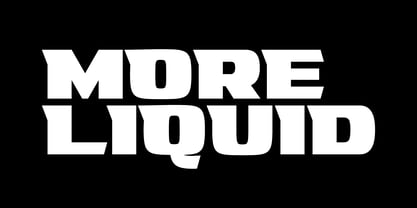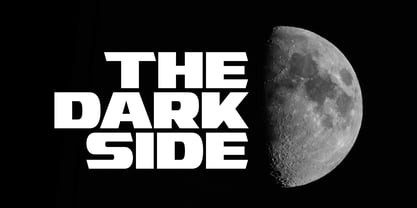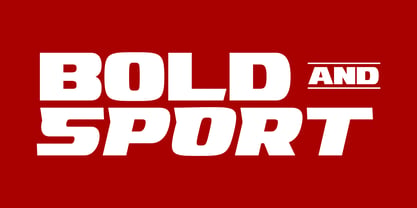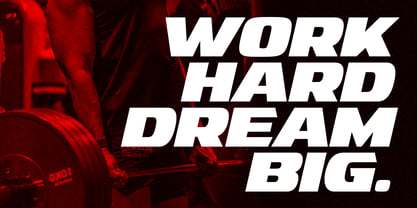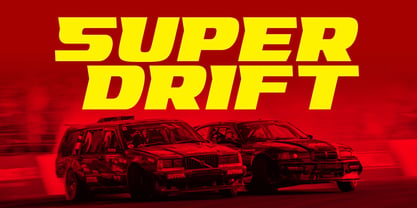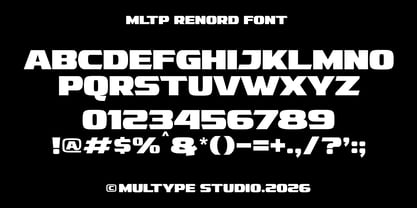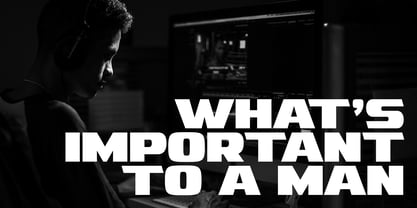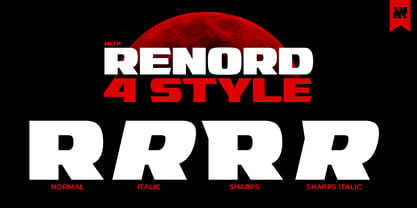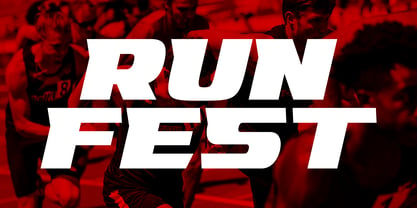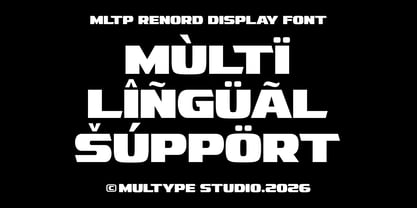
MLTP Renord
La famille de polices MLTP Renord a été conçue par Mulia Yanto et publiée par Multype Studio. MLTP Renord contient 4 styles et options de package familial. En savoir plus sur cette famille
MLTP Renord is a bold futuristic display font family featuring four powerful styles: Regular, Italic, Sharps, and Sharps Italic. Designed for maximum visual impact, this typeface combines strong geometric construction, aggressive angles, and industrial-inspired letterforms to create a modern display font built for gaming, esports, racing, sports branding, technology projects, and contemporary visual communication.
Inspired by motorsport graphics, sci-fi interfaces, cyberpunk aesthetics, military typography, and high-performance branding, MLTP Renord delivers exceptional versatility for logos, headlines, posters, apparel, merchandise, YouTube thumbnails, streaming graphics, packaging, and digital advertising.
The included Sharps styles provide a more aggressive and futuristic appearance, while the Italic styles introduce dynamic motion and speed. Together, these four styles give designers greater flexibility when creating impactful branding systems and attention-grabbing display typography.
Whether you're working on esports teams, gaming titles, automotive graphics, sports identities, tech startups, futuristic posters, or streetwear collections, MLTP Renord provides the bold visual presence needed to stand out.